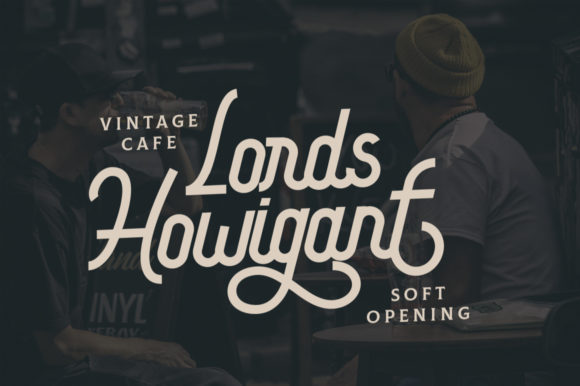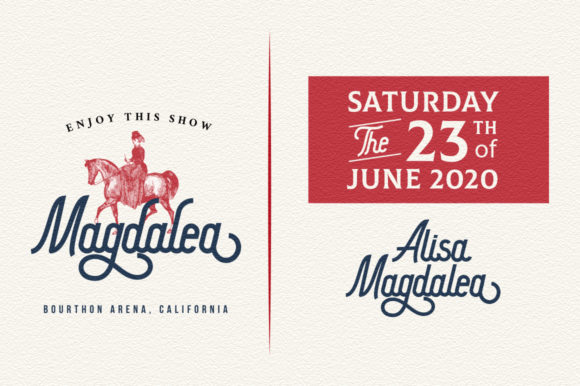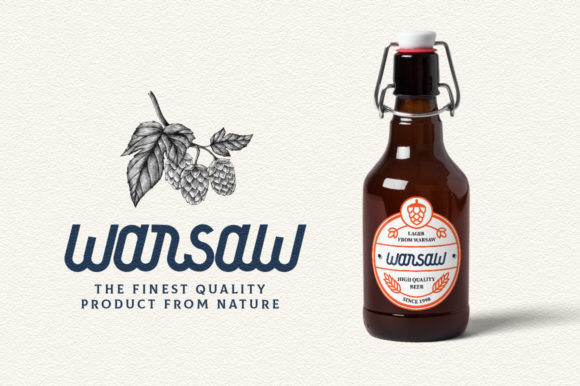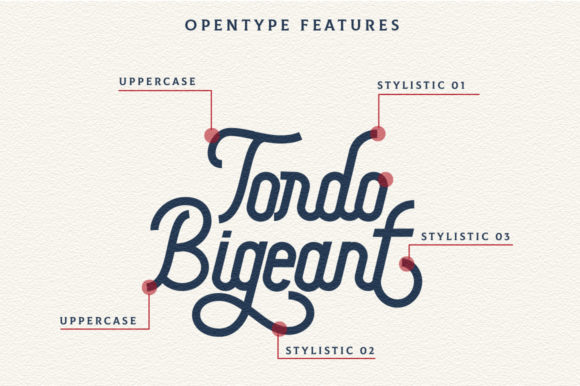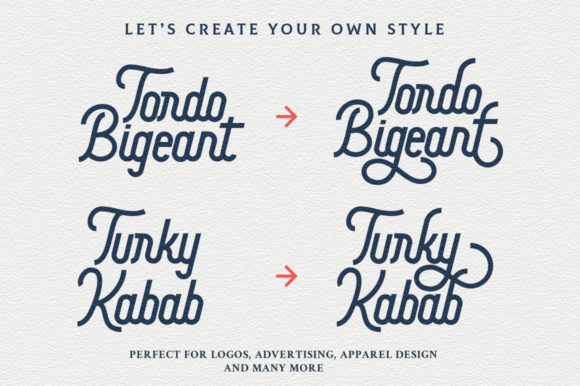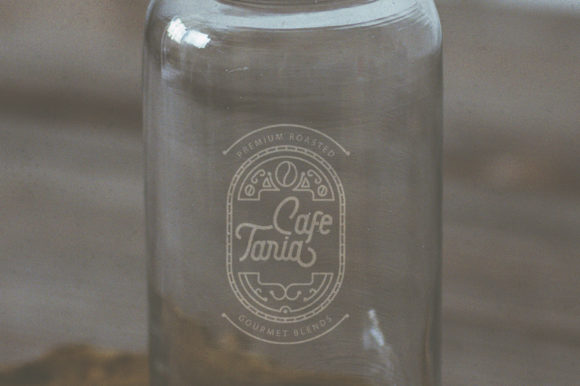
Introducing Hargael Duo Font: A Stunning Script & Sans Font Combination
Are you tired of using the same old fonts in your designs? Look no further than the Hargael Duo Font, a beautiful font duo that combines a stunning script font with a clean sans font. Inspired by all things vintage, Hargael’s beautiful swashes are sure to add a touch of elegance and sophistication to any design.
What is Hargael Duo Font?
Hargael Duo Font is a font duo that consists of two complementary fonts: a script font and a sans font. The script font features beautiful swashes and flourishes, giving it a vintage and elegant feel. The sans font, on the other hand, is clean and modern, making it perfect for body text and captions.
Key Features of Hargael Duo Font
- Beautiful Swashes: The script font in Hargael Duo Font features stunning swashes that are inspired by vintage designs. These swashes can be used to add a touch of elegance and sophistication to any design.
- Script & Sans Font Combination: The font duo includes both a script font and a sans font, making it versatile and perfect for a wide range of design projects.
- Vintage Inspiration: The Hargael Duo Font is inspired by all things vintage, giving it a unique and distinctive look that is sure to stand out.
- Elegant and Sophisticated: The beautiful swashes and flourishes in the script font give it an elegant and sophisticated feel, making it perfect for designs that require a touch of luxury.
Uses of Hargael Duo Font
Hargael Duo Font is a versatile font duo that can be used in a wide range of design projects, including:
- Branding and Logo Design: The elegant and sophisticated feel of the script font makes it perfect for branding and logo design projects.
- Wedding and Event Design: The vintage inspiration and beautiful swashes make Hargael Duo Font perfect for wedding and event design projects.
- Packaging Design: The clean and modern sans font makes it perfect for packaging design projects, while the script font can be used for labels and captions.
- Digital Design: Hargael Duo Font can be used in digital design projects, such as website design, social media graphics, and email marketing campaigns.
Why Choose Hargael Duo Font?
There are many font duos available on the market, but Hargael Duo Font stands out from the rest. Here are just a few reasons why:
- Unique and Distinctive: The vintage inspiration and beautiful swashes give Hargael Duo Font a unique and distinctive look that is sure to stand out.
- Versatile: The font duo includes both a script font and a sans font, making it versatile and perfect for a wide range of design projects.
- Elegant and Sophisticated: The beautiful swashes and flourishes in the script font give it an elegant and sophisticated feel, making it perfect for designs that require a touch of luxury.
In conclusion, Hargael Duo Font is a stunning font duo that is perfect for designers and crafters looking to add a touch of elegance and sophistication to their designs. With its beautiful swashes, vintage inspiration, and versatile font combination, Hargael Duo Font is sure to stand out from the rest. Whether you’re working on a branding project, wedding design, or packaging design, Hargael Duo Font is a great choice.